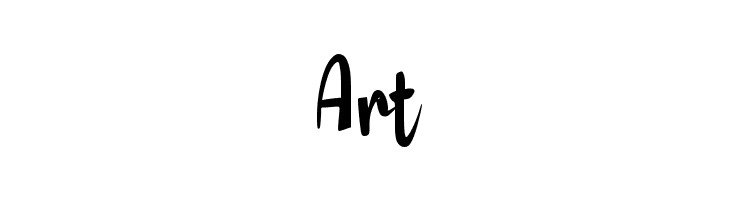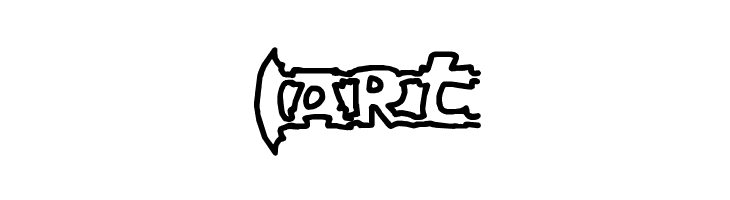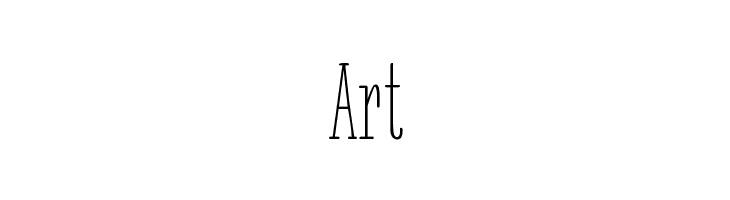
A modern, geometric font with tall, narrow characters and clean lines.
A tall, slender serif font with elegant, elongated characters.
A bold, playful handwritten font with thick strokes and a casual feel.
A playful, bold, and whimsical font with a hand-drawn aesthetic.
A playful, brush-style font with bold, irregular strokes.
A bold, hand-painted font with textured, brush-like strokes.
A bold, handwritten font with playful, rounded strokes and a friendly appearance.